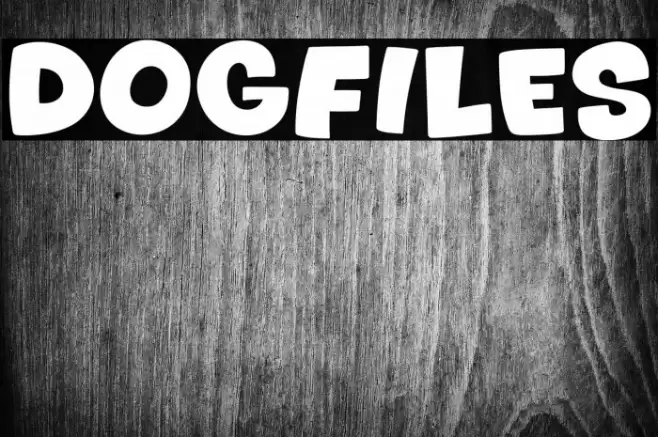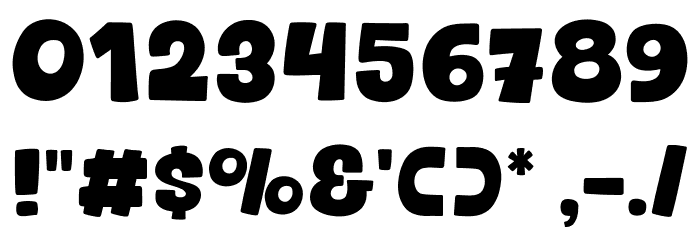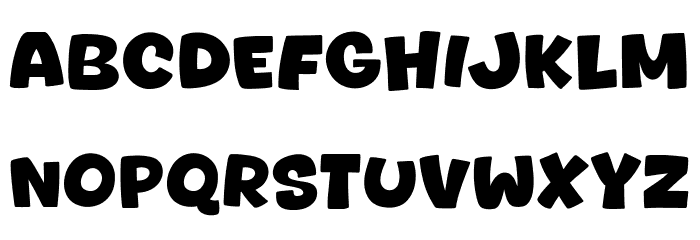
Dogfiles Font
Dogfiles Description
This playful and bold font features thick, rounded characters that exude a sense of fun and energy. The letters are uniformly bold with a slightly irregular shape, giving them a hand-drawn appearance. The font maintains a consistent weight throughout, with wide, open counters and a strong presence. The numbers and special characters follow the same style, ensuring a cohesive look across all text elements. Its whimsical nature makes it ideal for projects that require a touch of humor or creativity.
A bold, playful font with rounded, hand-drawn characters from Uncategorized fonts.
- Font: Dogfiles
- Proposed Projects: Perfect for children's books, playful branding, party invitations, and comic-style graphics.
- Overall Style: Playful